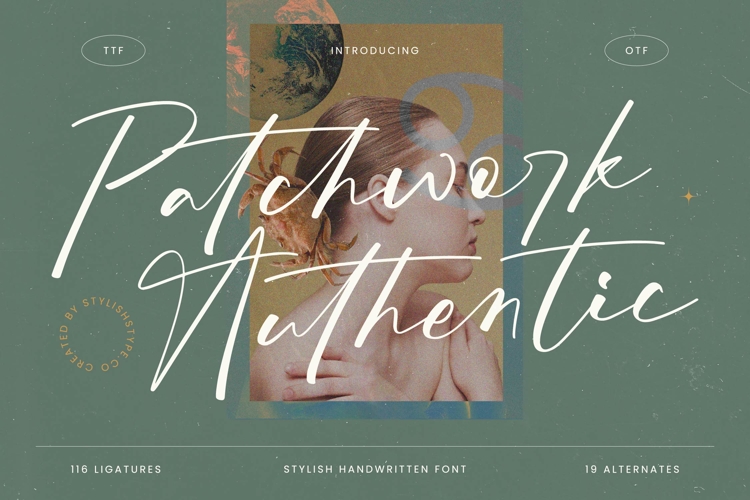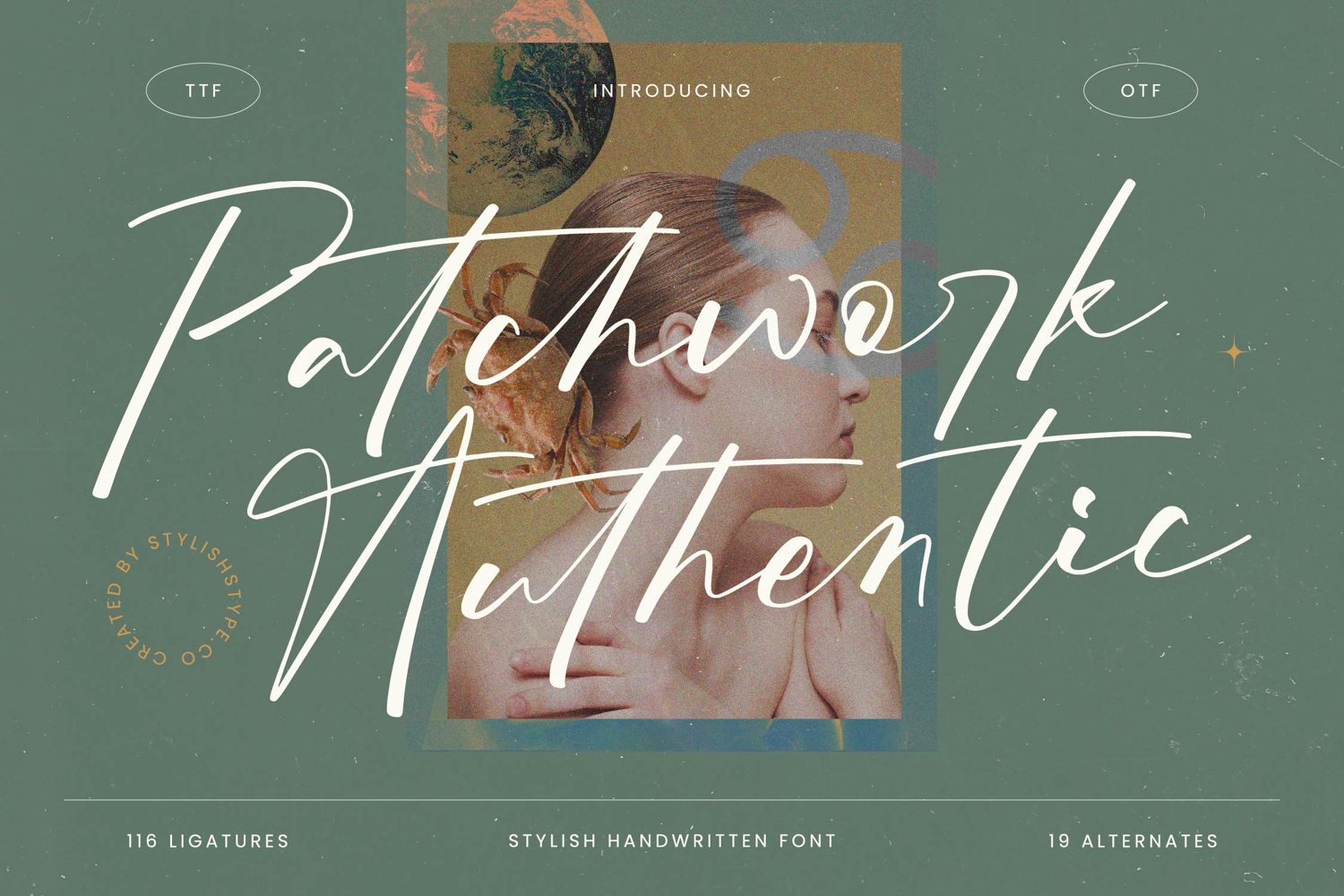
Patchwork Authentic - Stylish Handwritten Font
Discover the timeless elegance and artisan charm of Font Patchwork Authentic - Stylish Handwritten Font Script. This exquisite typeface embodies the of genuine hand-lettering, featuring graceful flowing lines and a distinctive high-contrast stroke that immediately captures attention. It delivers a sophisticated yet warm aesthetic, perfect for projects demanding a and exclusive touch.
Unleash unlimited creative potential with the exceptional versatility of Font Patchwork Authentic - Stylish Handwritten Font Script. Boasting an impressive collection of 116 ligatures and 19 alternate characters, it empowers designers to craft truly unique and fluid text compositions. With its extensive multilingual support, Font Patchwork Authentic - Stylish Handwritten Font Script adapts seamlessly across global markets, making it incredibly versatile for international projects.